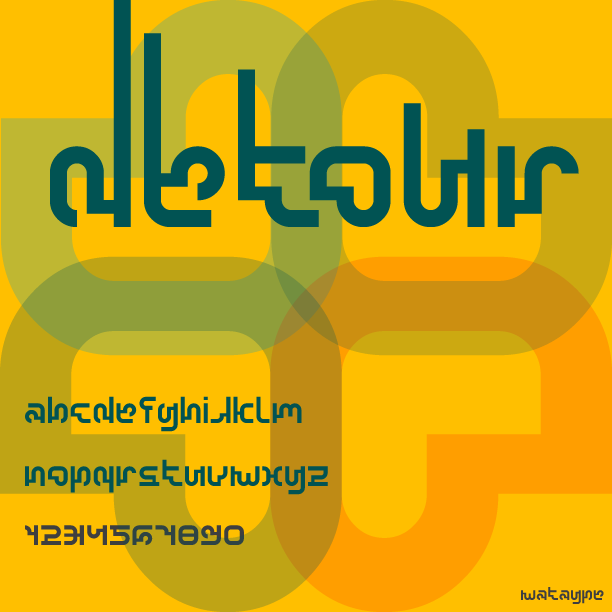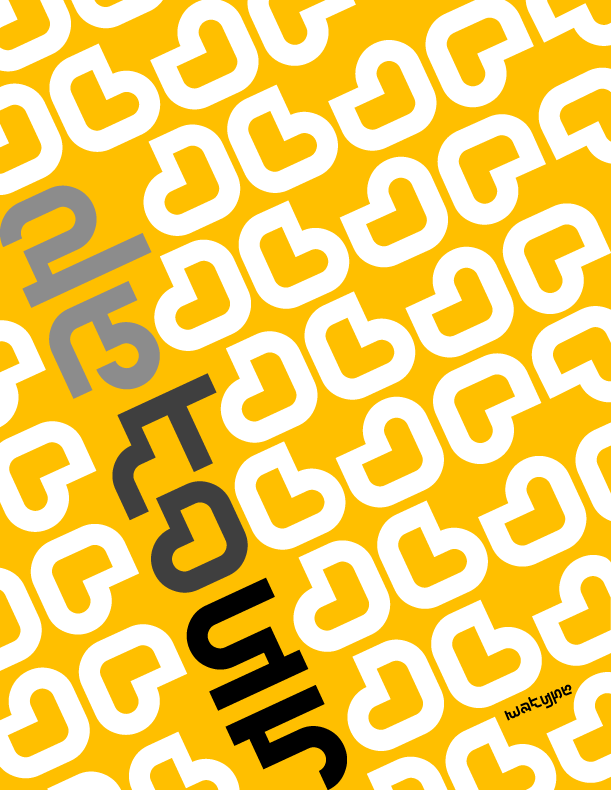
Congratulations! FontStruct Staff have deemed your FontStruction worthy of special mention. “Detour” is now a Top Pick.
Those samples are indeed very pro/cool looking! Congrats on the TP mate
Beautiful style.